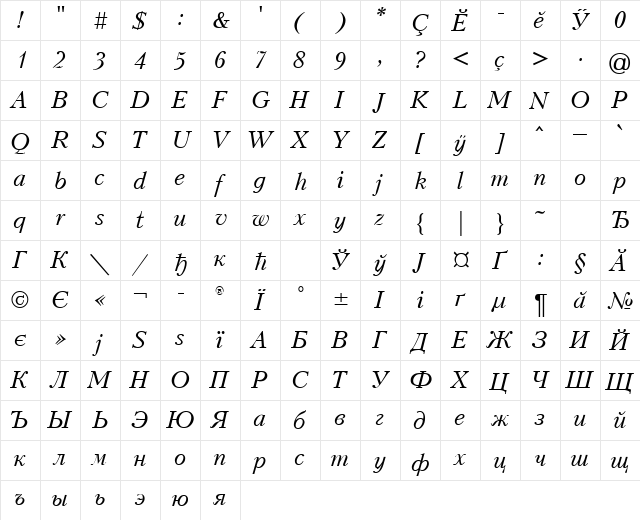
Peterburg Chuv Italic Italic
Design Context for Peterburg Chuv Italic Typeface
Peterburg Chuv Italic takes a measured approach to typography — its balanced proportions and neutral character make it a reliable workhorse for both digital and print work. Its italic angle brings a sense of urgency and motion to the letterforms.
Pro Tip: Use Peterburg Chuv Italic for emphasis, pull quotes, and subheadings where its slanted energy can add rhythm to the layout.